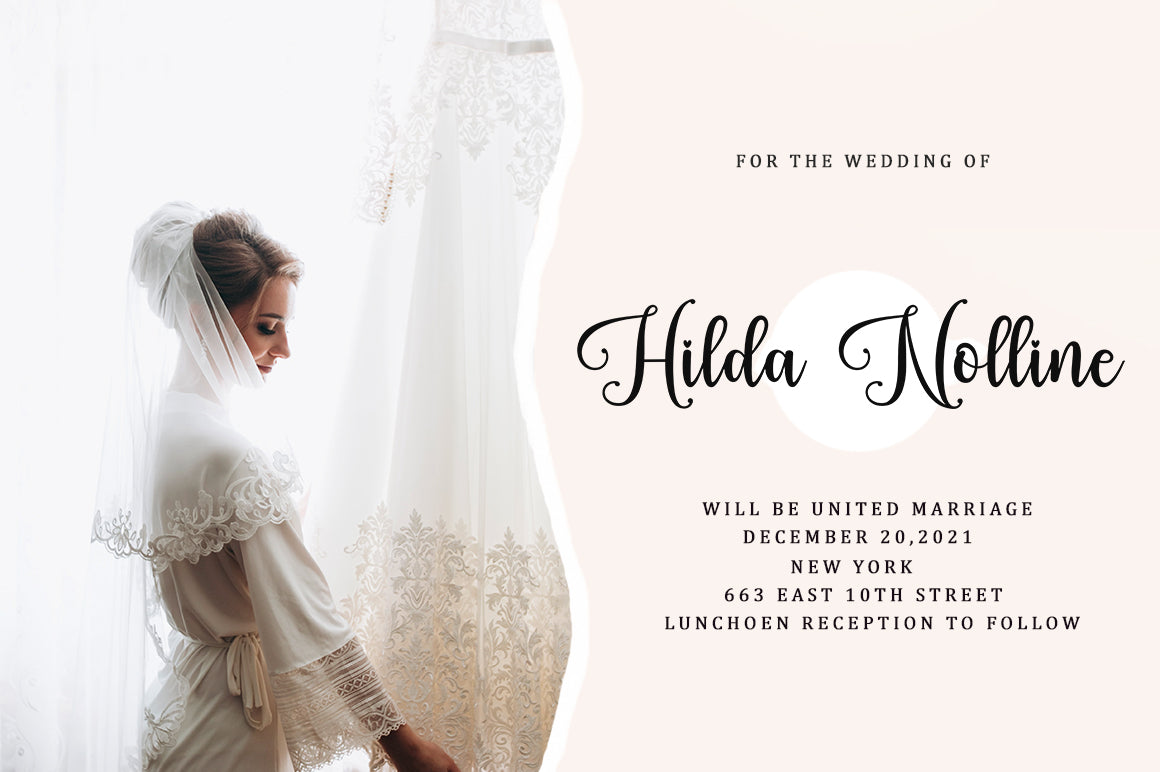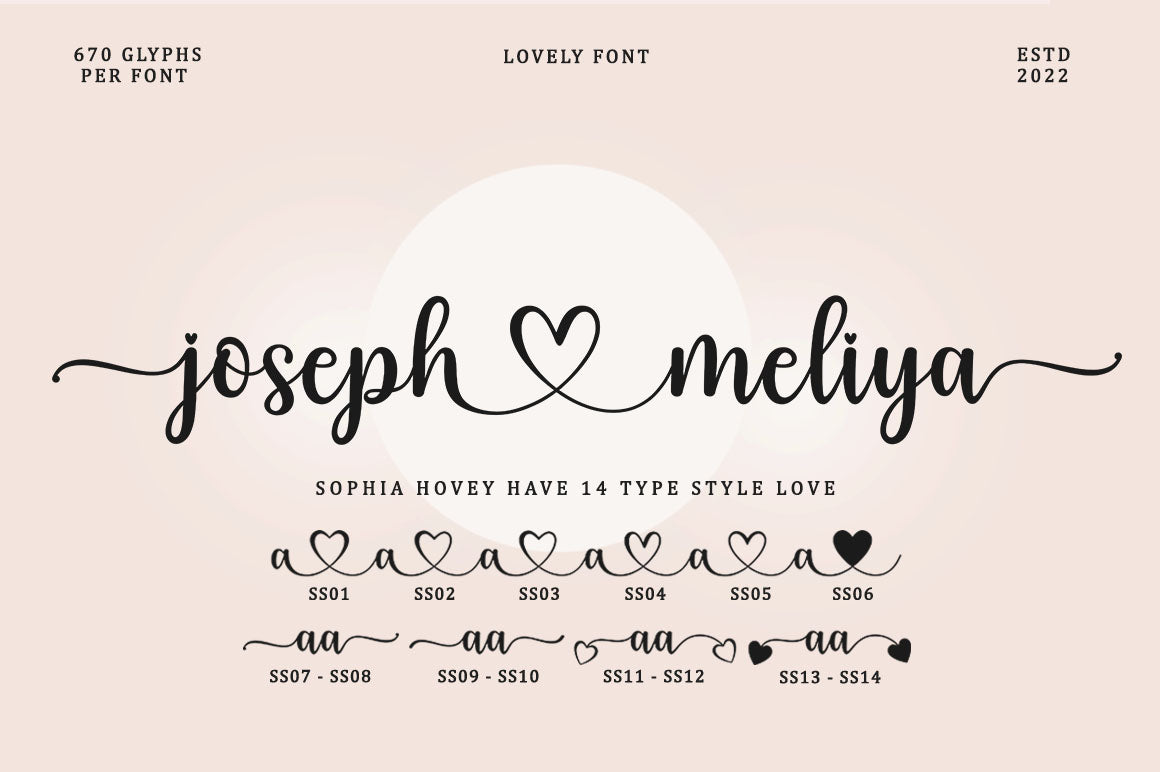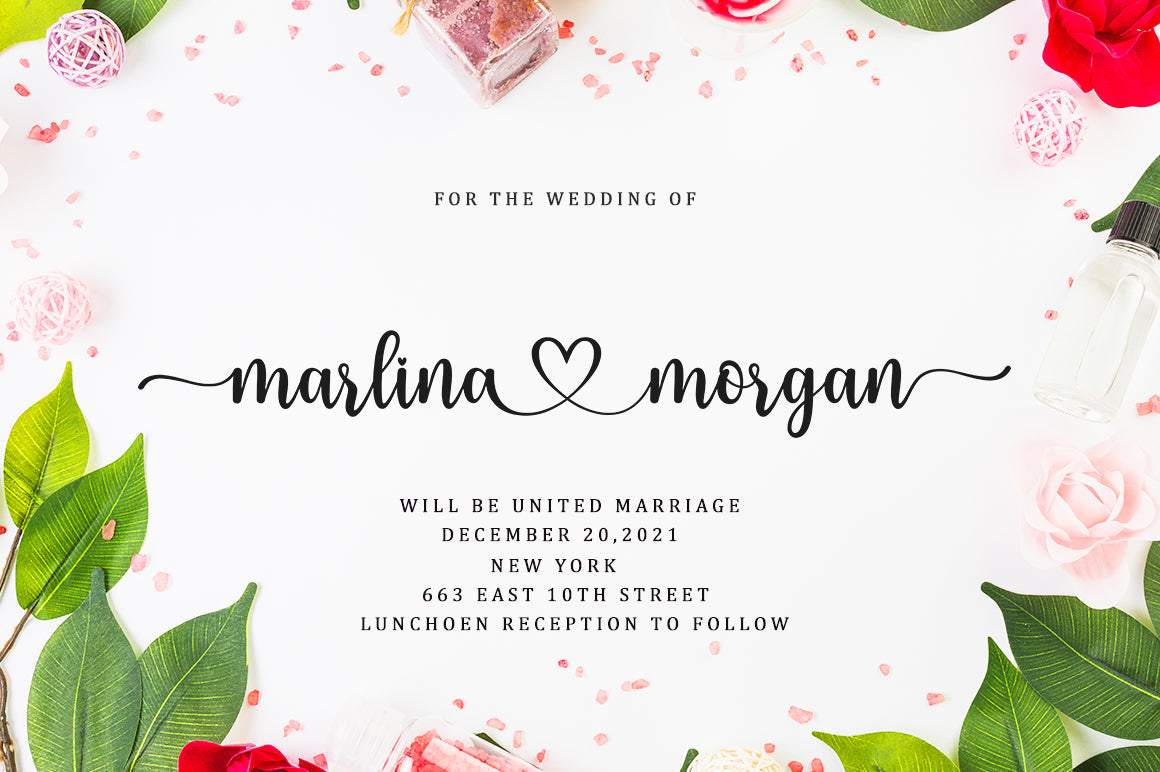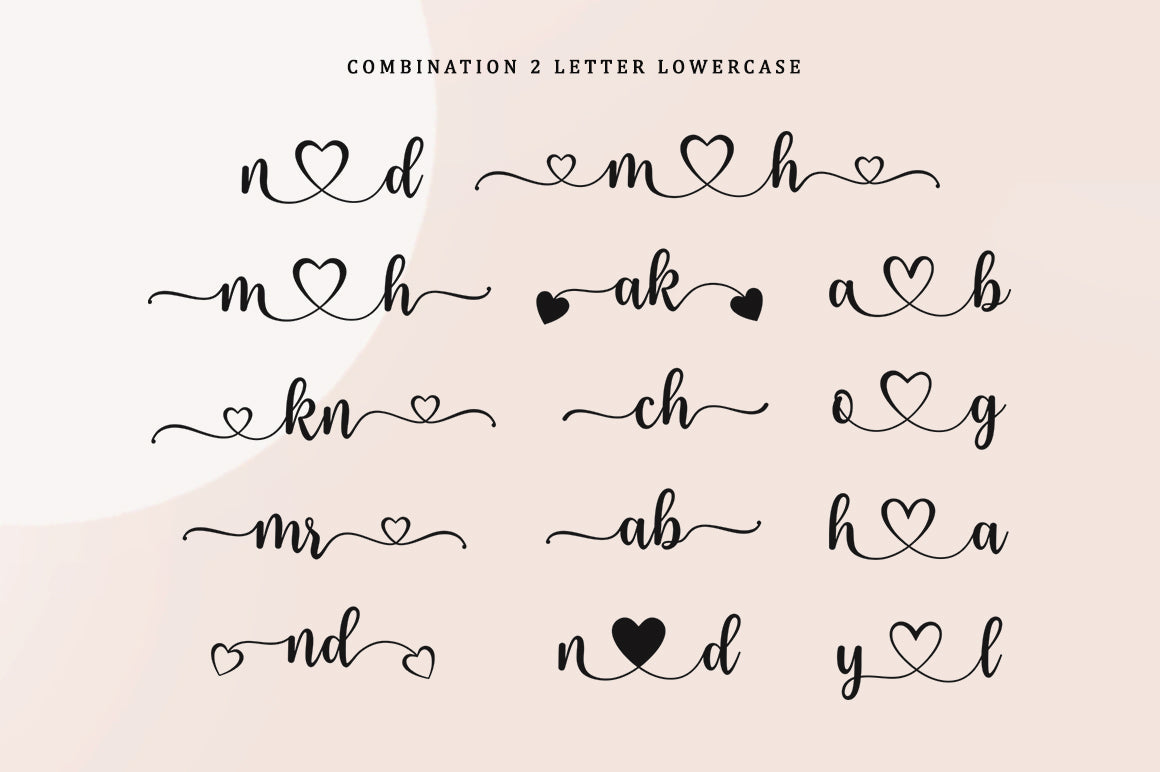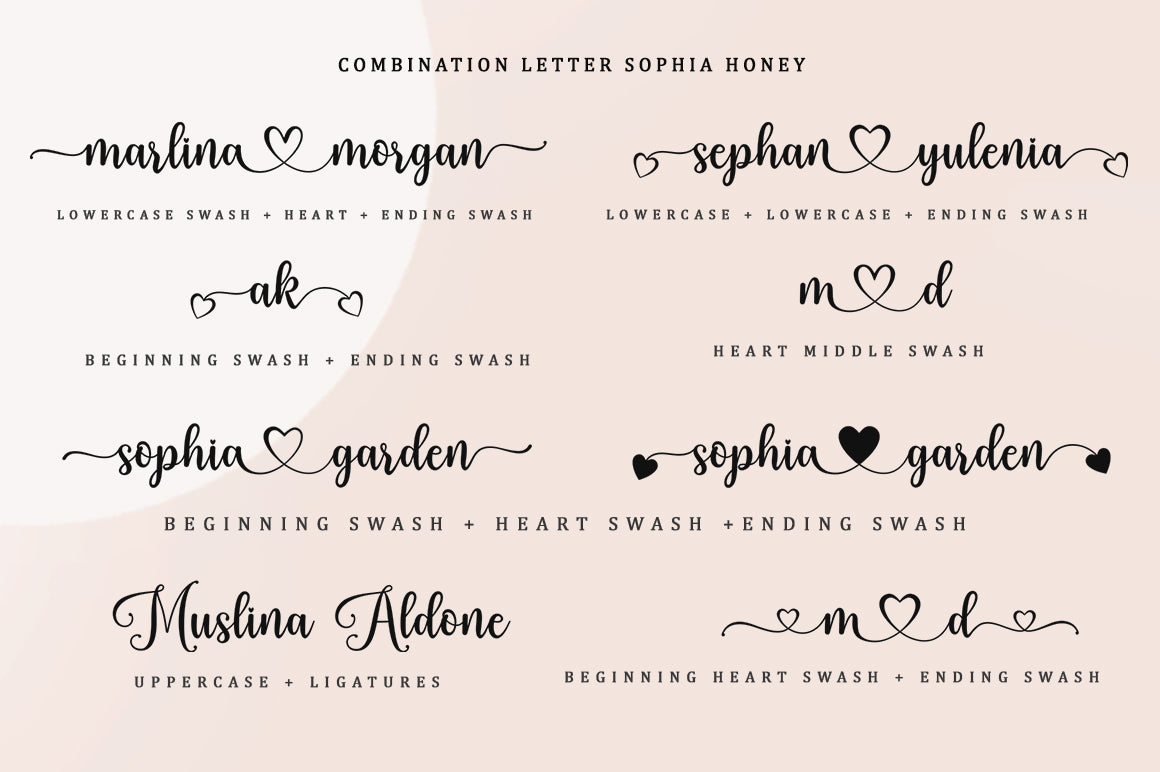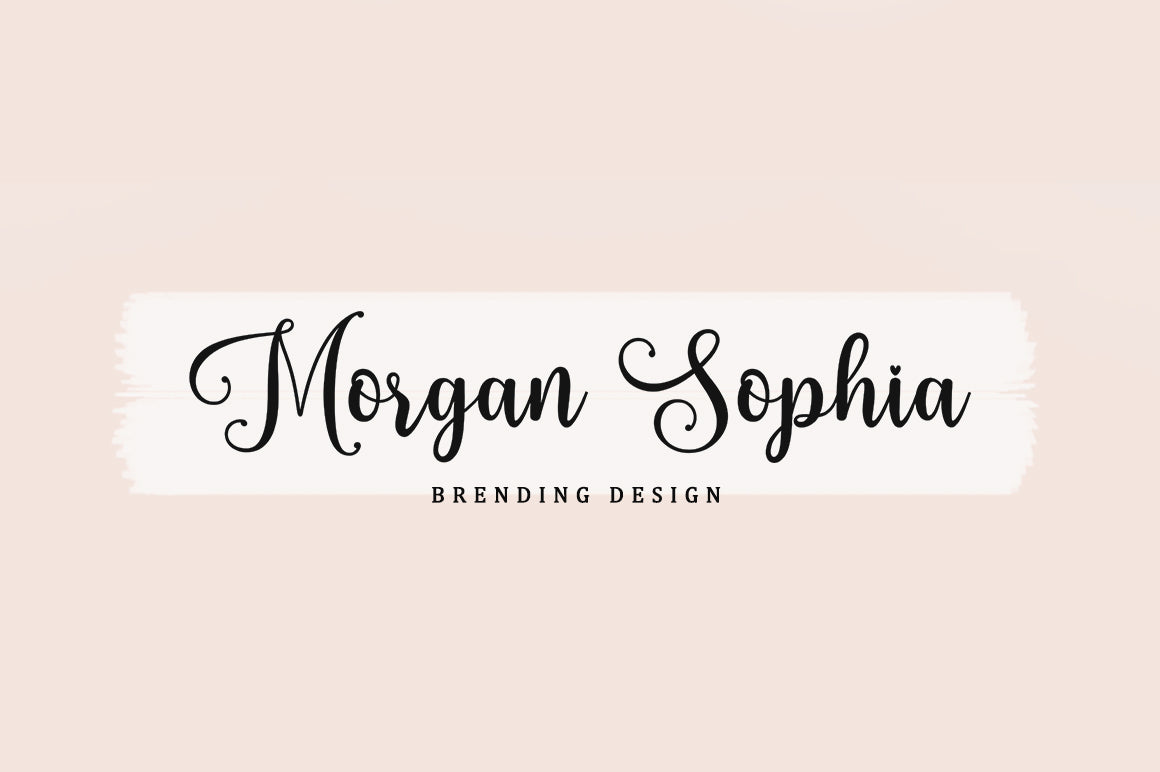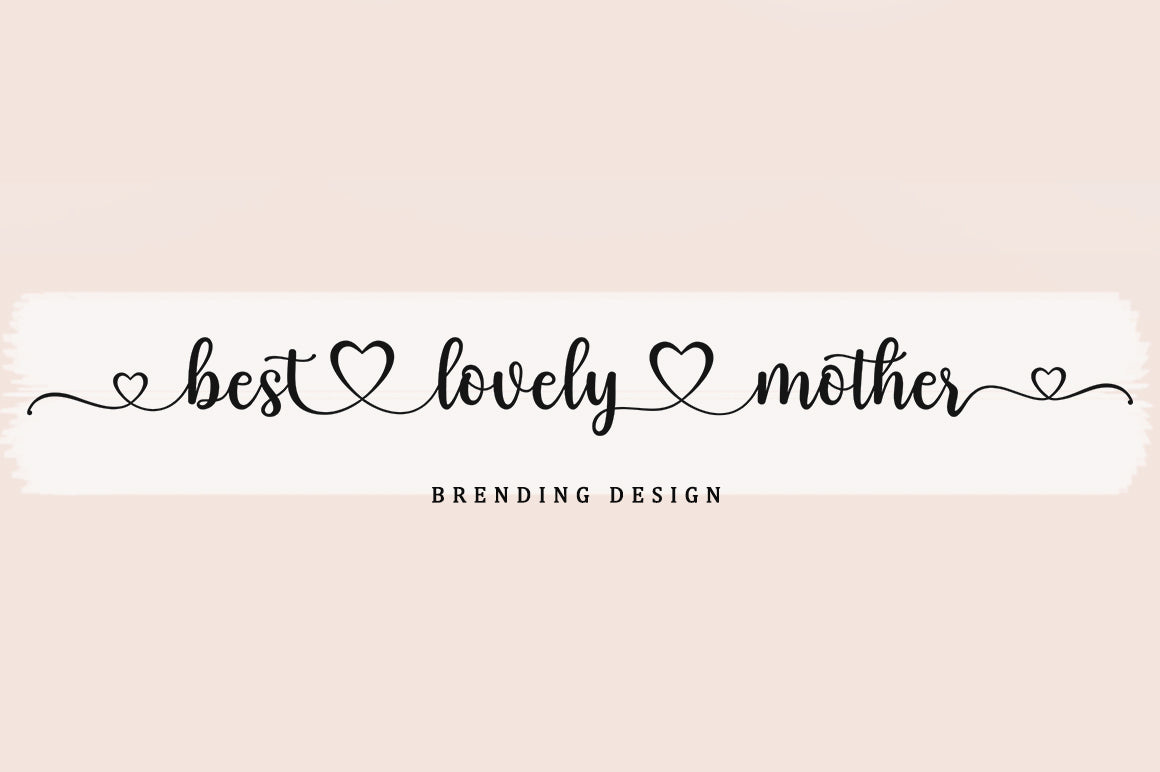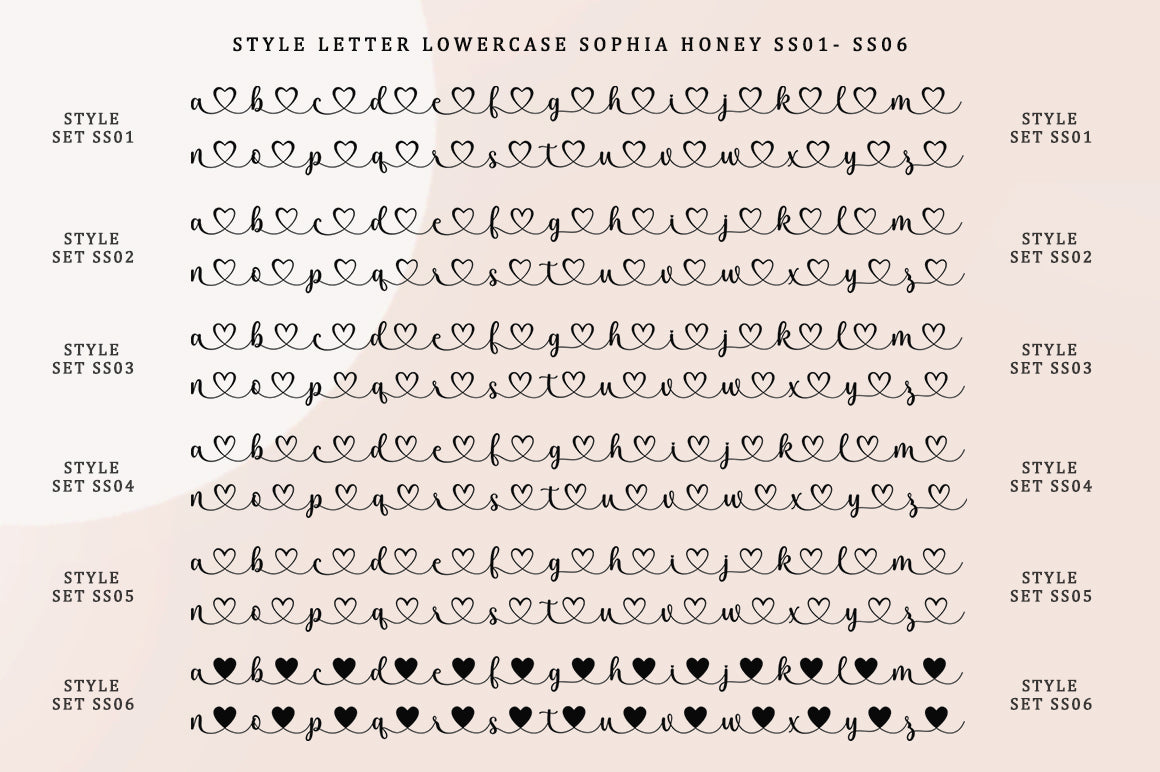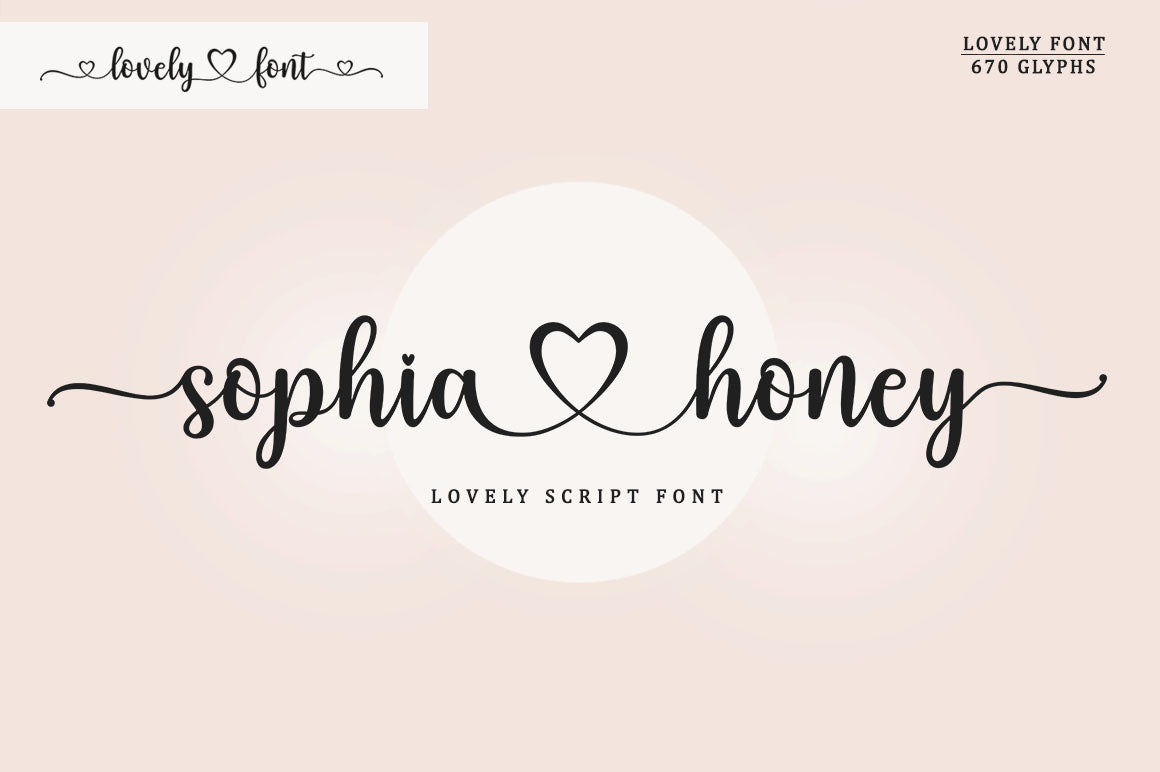
Sophia Honey
About Sophia Honey
Sophia Honey is one of the modern calligraphy fonts that comes with a beautiful style that connects in the middle of the heart, designed with high details to present a luxurious style. Sophia Honey includes a complete set of beautiful upper and lower case letters, numbers, punctuation, ligatures and multilingual. All lowercase letters including the beginning and end of the swash, give it a luxurious handwriting style. Classic style is very suitable to be applied in various formal forms such as invitations, labels, restaurant menus, logos, fashion, make up, stationery, novels, magazines, books, greeting / wedding cards, packaging, labels or all kinds of your needs. . . Attention! -Has 6 styles of connecting hearts in the middle. -Has 8 start and end swash styles. if your software doesn’t have Glyph or style panel, you can install font swash or custom style file that I have provided: You will get: OTF, TTF If you want to see all the styles or the complete swash, I’ve provided the file (1.Adelia Rehan) there! To use beautiful applications, you need a program that supports OpenType features such as Adobe Illustrator CS, Adobe Photoshop CC, Adobe Indesign, and Corel Draw. How to access all alternative characters using Adobe Illustrator: https://www.youtube.com/watch?v=XzwjMkbB-wQ How to access all alternative characters, using the Windows Character Map with Photoshop: https://www.youtube.com/watch?v=Go9vacoYmBw If you need help or have any questions, let me know. I’m happy to help. Thanks & Happy Designing!